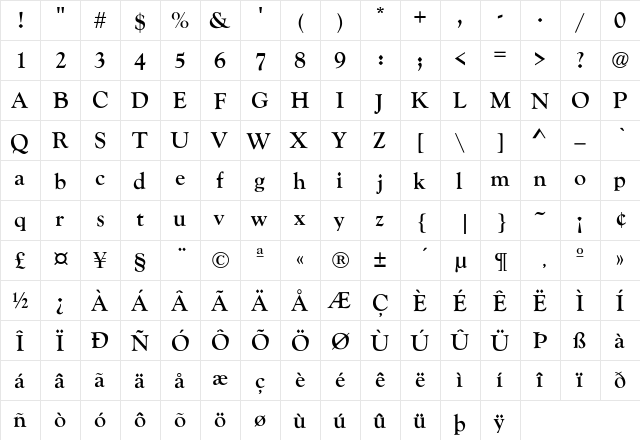
Goudy-Old-Style-Bold Regular
Design Context for Goudy-Old-Style-Bold Typeface
Goudy-Old-Style-Bold offers clean, dependable letterforms without strong stylistic allegiance, making it a practical choice for designers who need flexibility. The heavy weight commands attention and anchors typographic hierarchies.